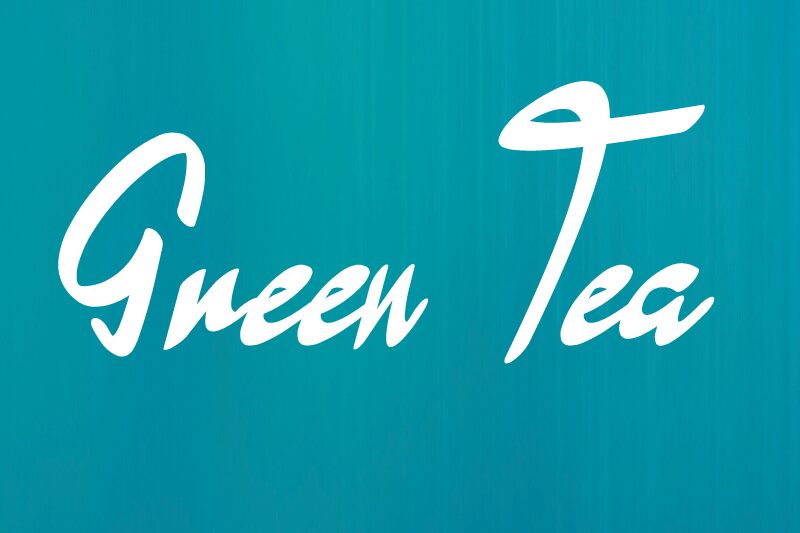
Green Tea Bold Italic
Green Tea Bold Italic is an exquisite handwritten font that embodies elegance and sophistication. Created by Design Vector10, this font family is perfect for projects that require a touch of refinement and creativity. The semi-bold width and italic style add a unique flair to any design, making it ideal for wedding invitations, branding materials, or even social media graphics. Its smooth curves and flowing lines create a sense of harmony and balance, drawing the viewer's eye inwards towards the message you're trying to convey. If you want your next project to speak volumes about your brand's personality and style, Green Tea Bold Italic is the perfect choice!